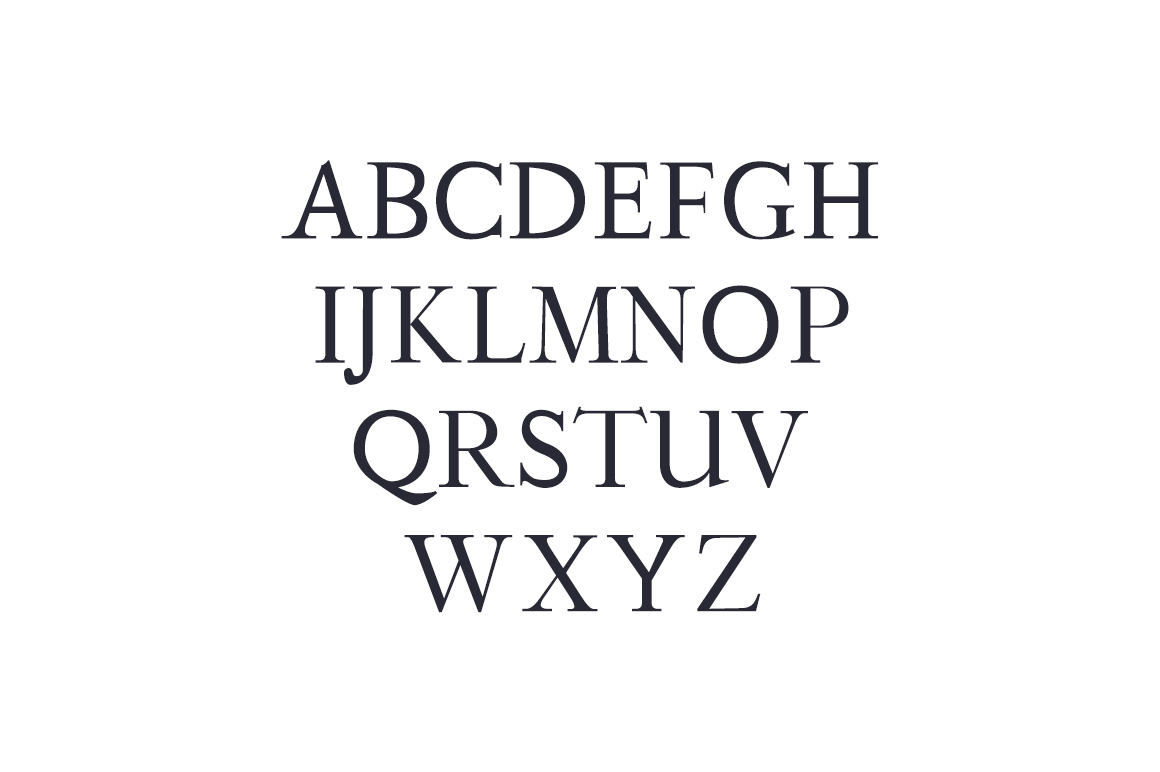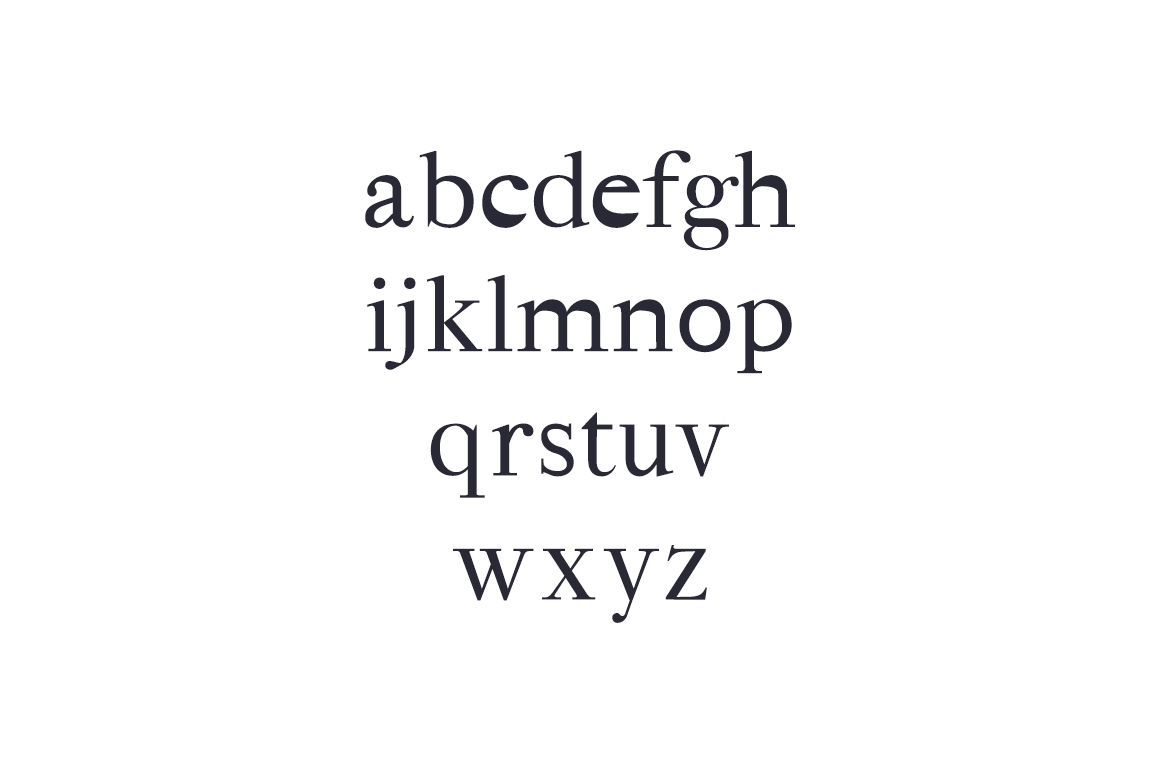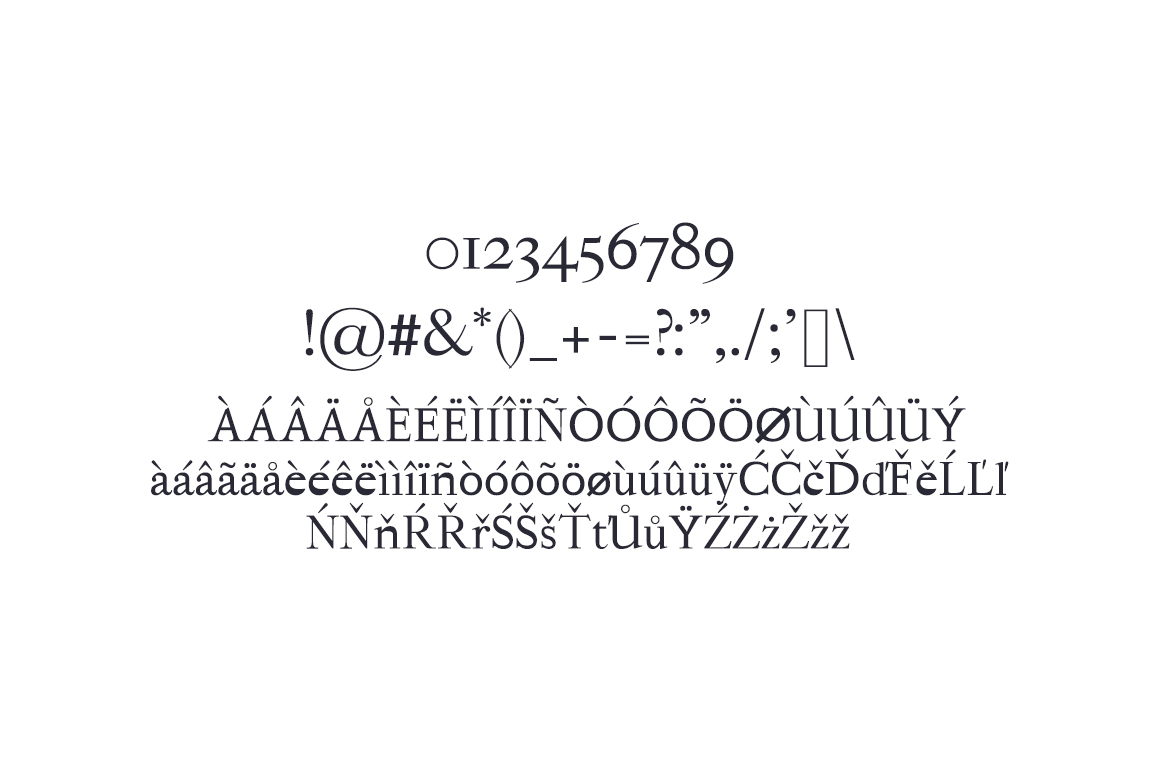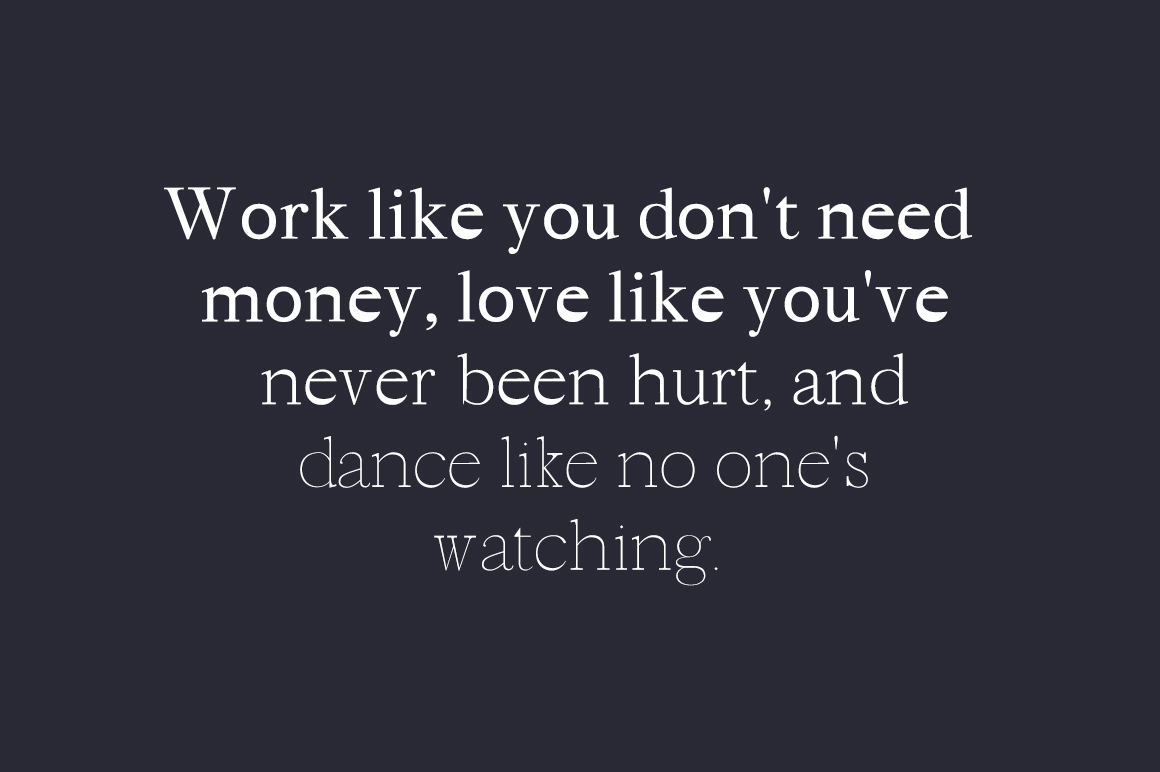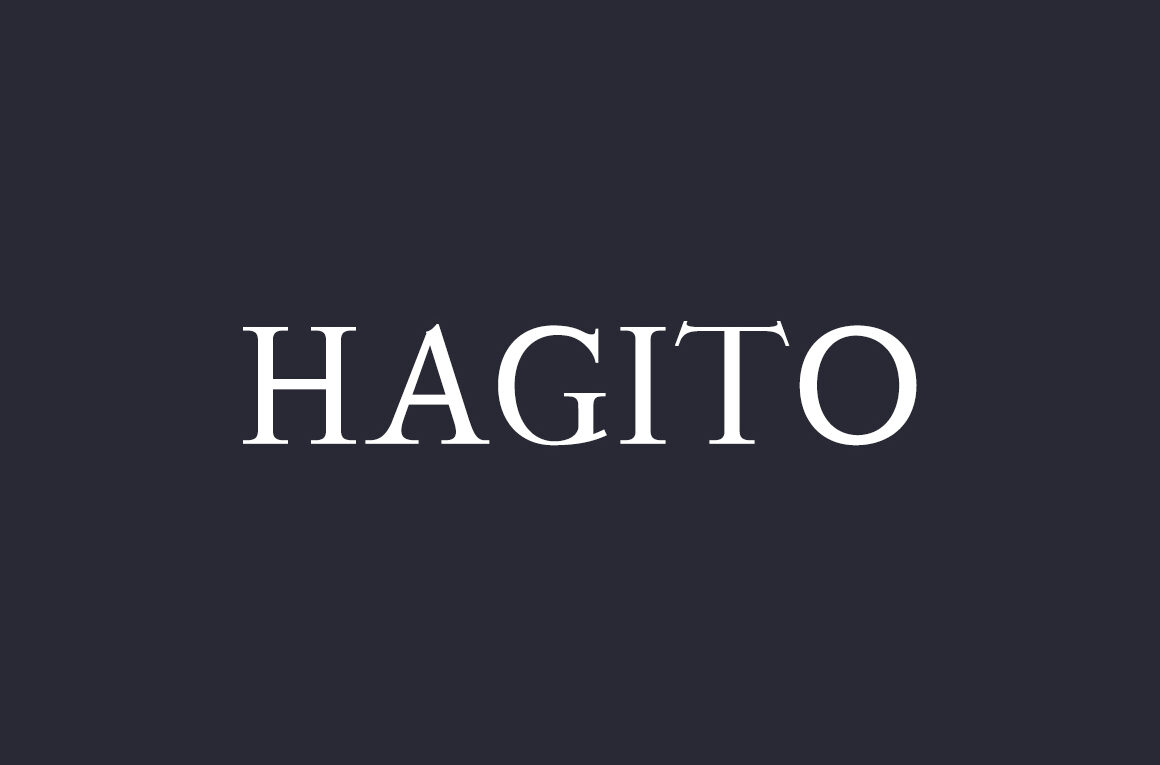
Introducing Hagito Font: A Delightful Serif Addition to Your Design Collection
Are you on the hunt for a font that adds a touch of warmth and tradition to your designs? Look no further than Hagito, a charming serif font that is sure to become a staple in your collection. With its variable weights and classic aesthetic, Hagito is the perfect choice for designers and crafters looking to add some character to their projects.
The Charm of Hagito
Hagito is a beautifully crafted serif font that exudes a sense of tradition and warmth. Its delicate lines and classic proportions make it an excellent choice for a wide range of design applications, from elegant headings and titles to body text and more. Whether you’re working on a branding project, a website, or a craft project, Hagito is sure to bring a touch of sophistication and charm to your work.
Variable Weights for Added Versatility
One of the standout features of Hagito is its variable weights, which allow you to tailor the font to your specific design needs. Whether you need a bold, eye-catching headline or a more subtle, elegant body text, Hagito has got you covered. With a range of weights to choose from, you can use Hagito to create a cohesive look and feel across your entire design, from the smallest detail to the largest headline.
Traditional and Warm: The Perfect Combination
So what sets Hagito apart from other serif fonts on the market? For starters, its traditional aesthetic is both timeless and versatile, making it easy to pair with a wide range of other fonts and design elements. At the same time, Hagito’s warm and inviting personality makes it perfect for designs that need a touch of personality and charm. Whether you’re working on a formal or informal project, Hagito is sure to bring a sense of approachability and friendliness to your design.
Why Choose Hagito?
So why should you choose Hagito for your next design project? Here are just a few reasons why Hagito is an excellent choice:
- Timeless aesthetic: Hagito’s traditional serif design ensures that your work will stand the test of time, looking great for years to come.
- Variable weights: With a range of weights to choose from, you can tailor Hagito to your specific design needs, from bold headlines to elegant body text.
- Warm and inviting: Hagito’s charming personality makes it perfect for designs that need a touch of personality and approachability.
- Easy to pair: Hagito’s classic aesthetic makes it easy to pair with a wide range of other fonts and design elements.
Adding Hagito to Your Collection
If you’re ready to add a touch of charm and sophistication to your designs, it’s time to add Hagito to your collection. With its delightful serif design, variable weights, and warm personality, Hagito is sure to become a go-to font for a wide range of design applications. So why wait? Download Hagito today and start creating beautiful, engaging designs that stand out from the crowd.
Design and Craft Applications for Hagito
Hagito is a versatile font that can be used in a wide range of design and craft applications, including:
- Branding and logos: Hagito’s classic aesthetic makes it perfect for creating elegant and sophisticated brand identities.
- Web design: Hagito’s variable weights and clean design make it an excellent choice for web design, from headings and titles to body text and more.
- Print design: Hagito’s traditional serif design makes it perfect for print design applications, from business cards and brochures to posters and more.
- Crafting and DIY projects: Hagito’s charming personality makes it a great choice for crafting and DIY projects, from handmade cards and invitations to signs and more.
In conclusion, Hagito is a delightful serif font that is sure to add a touch of charm and sophistication to your designs. With its variable weights, traditional aesthetic, and warm personality, Hagito is the perfect choice for designers and crafters looking to create beautiful, engaging designs that stand out from the crowd. So why wait? Add Hagito to your collection today and start creating amazing designs!